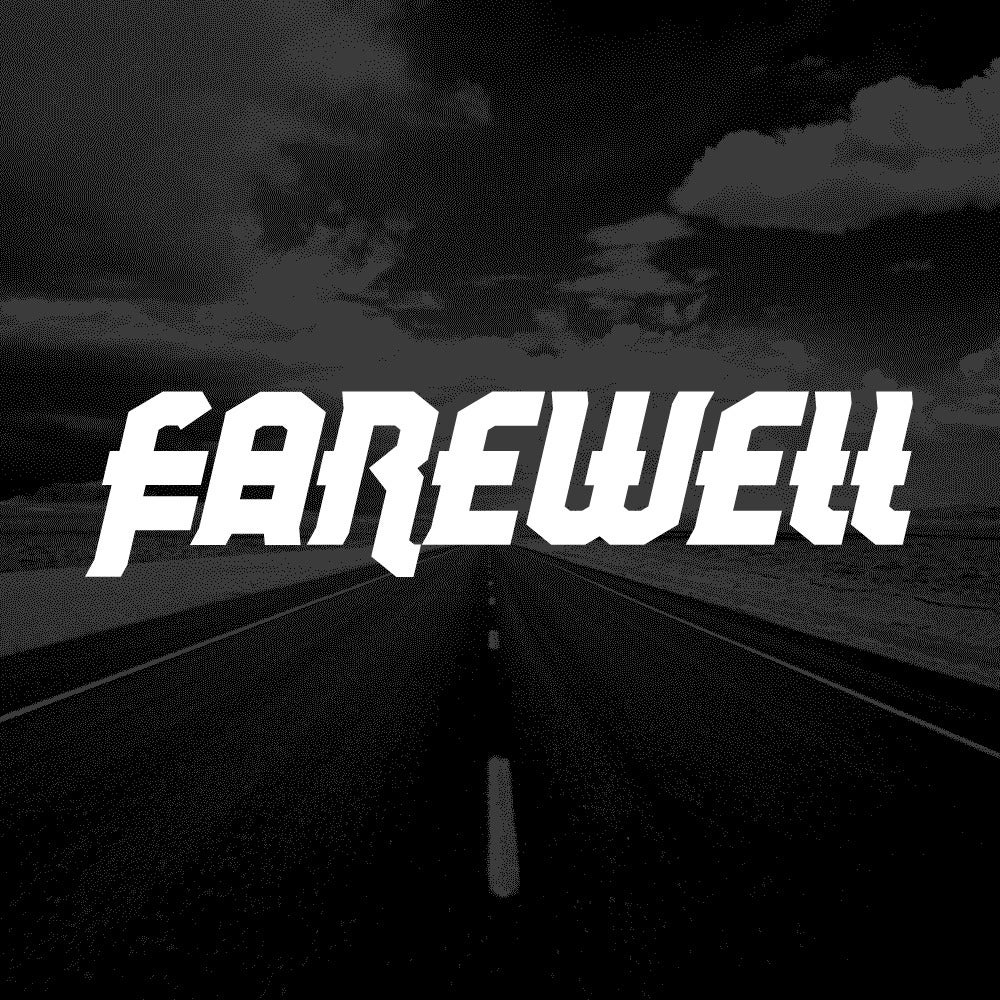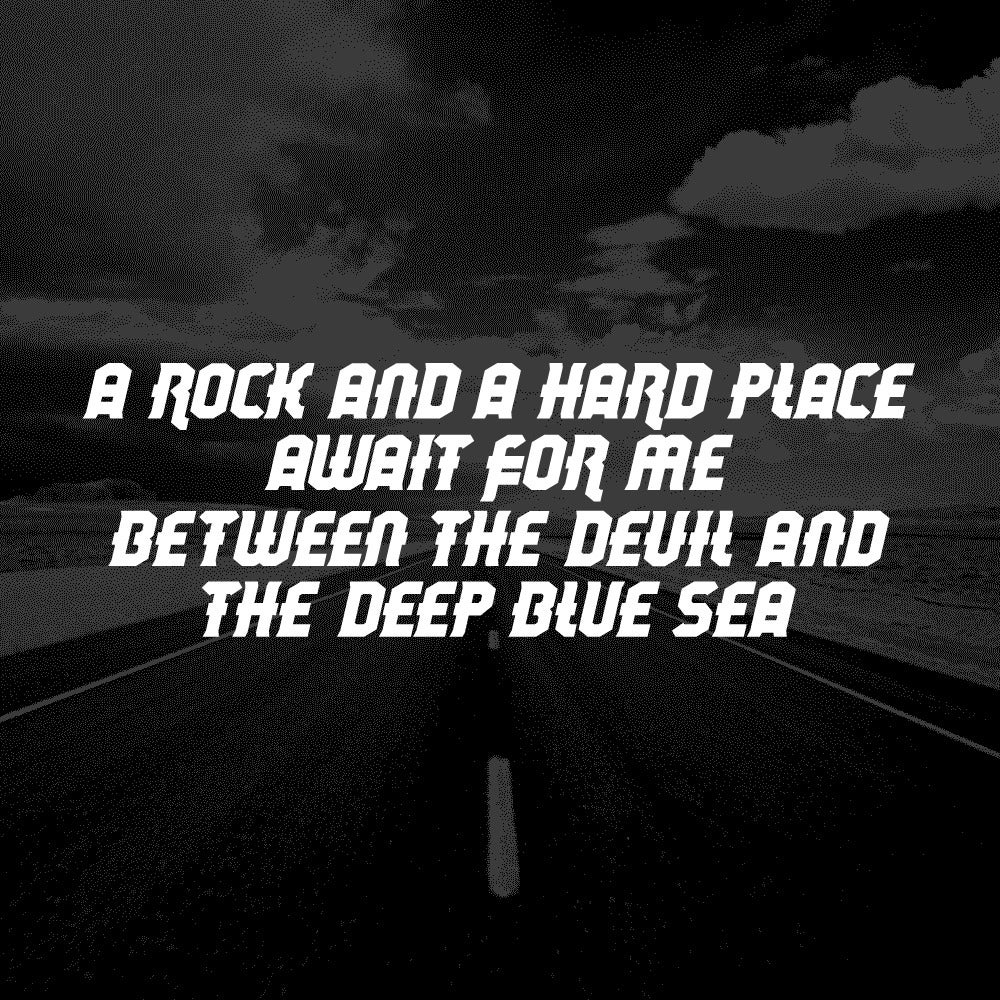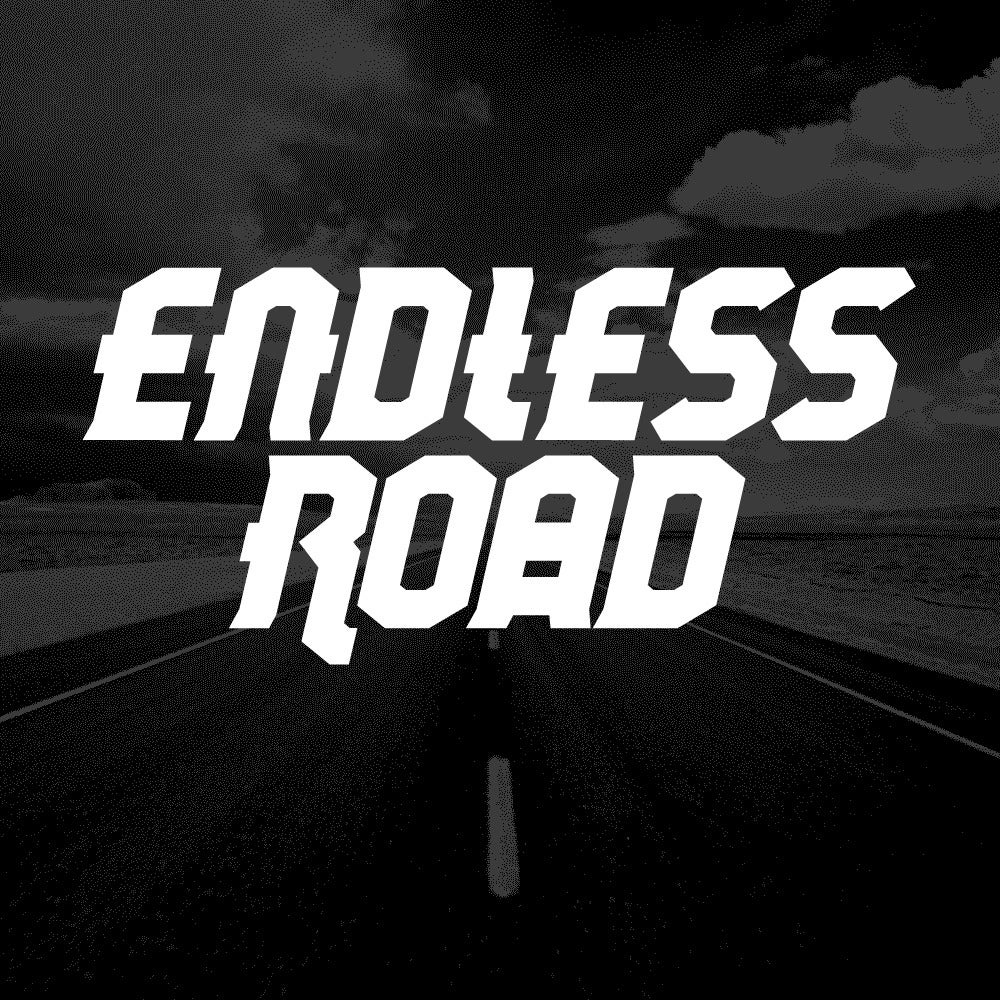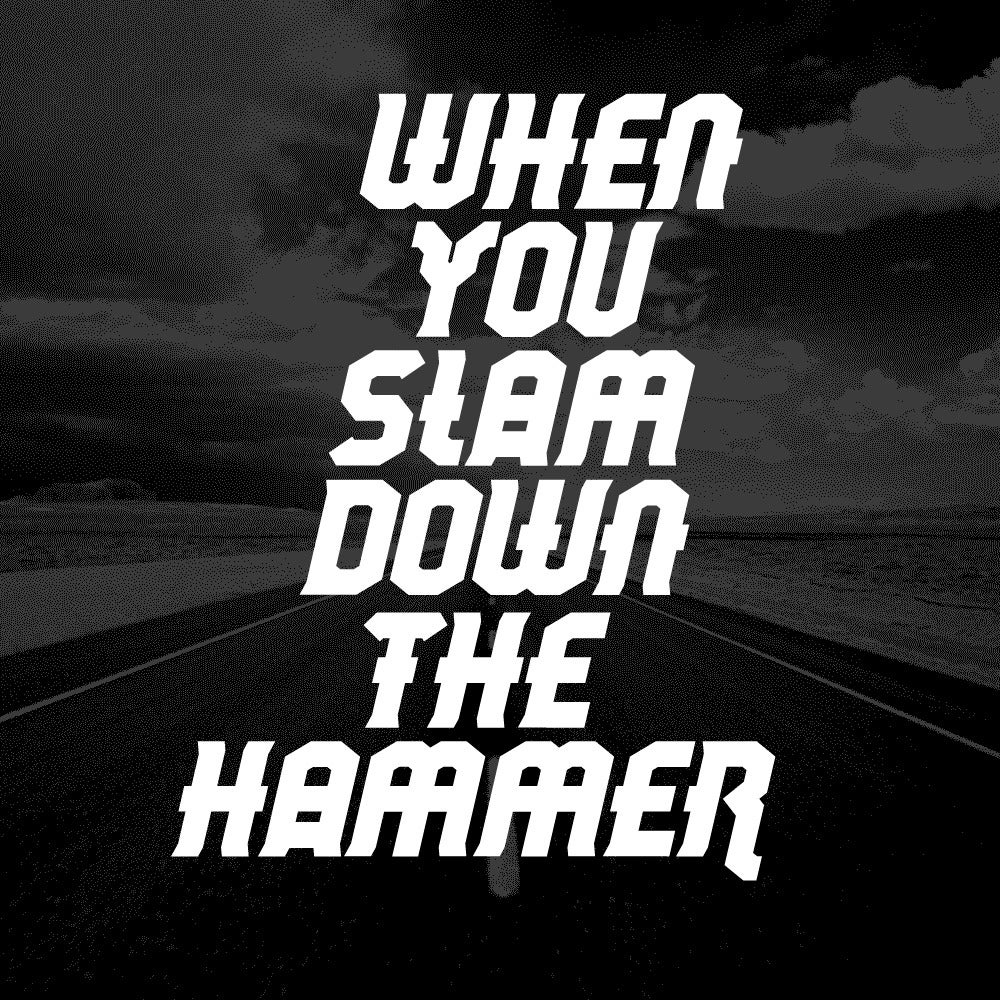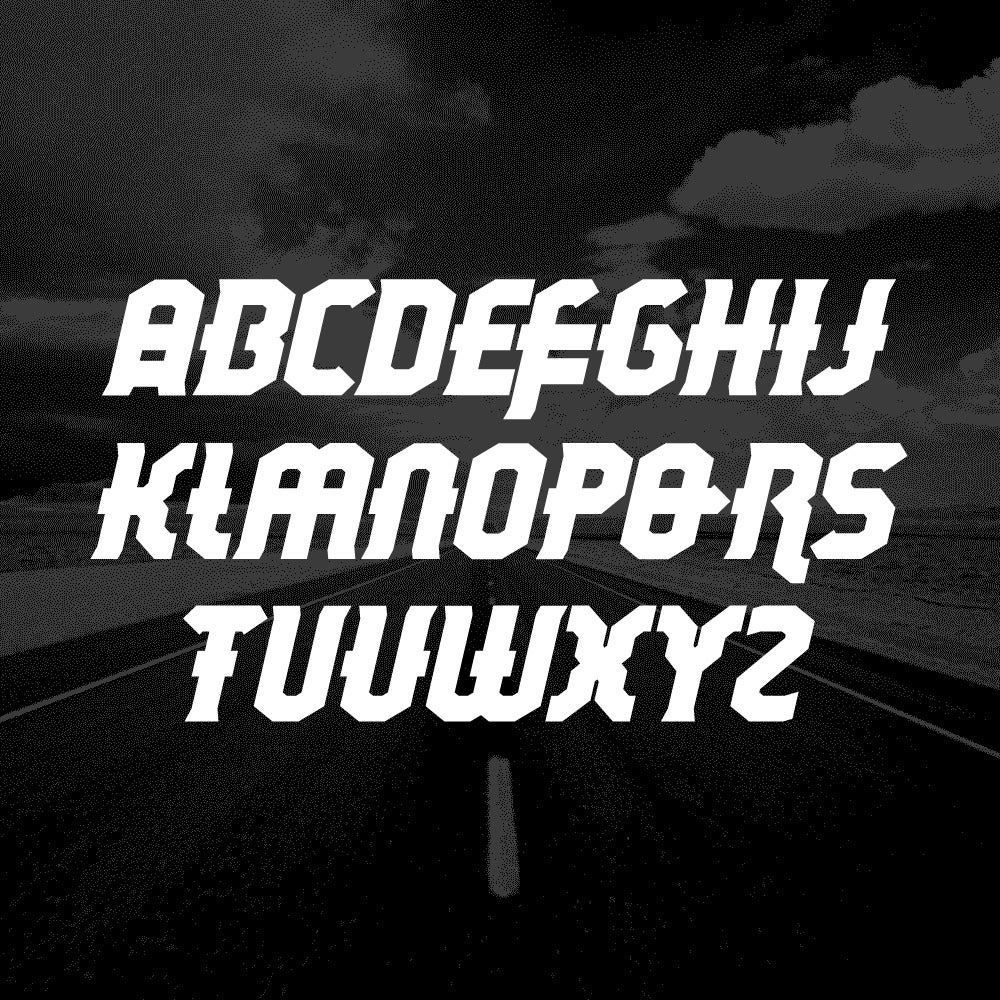
Farewell
Farewell was designed to be a heavy display font. The design contains black and strong italic capitals that have a powerful presence when displaying your textual message.